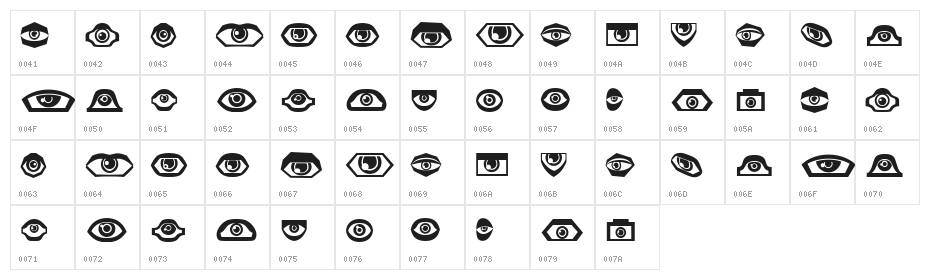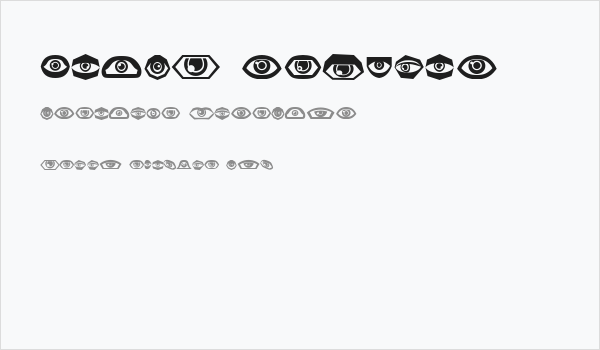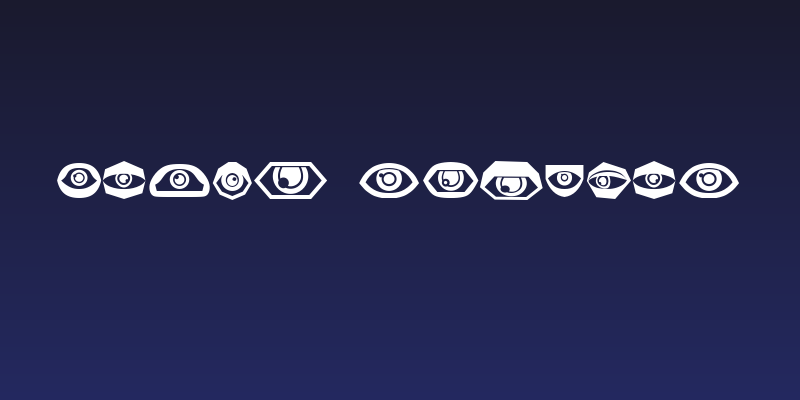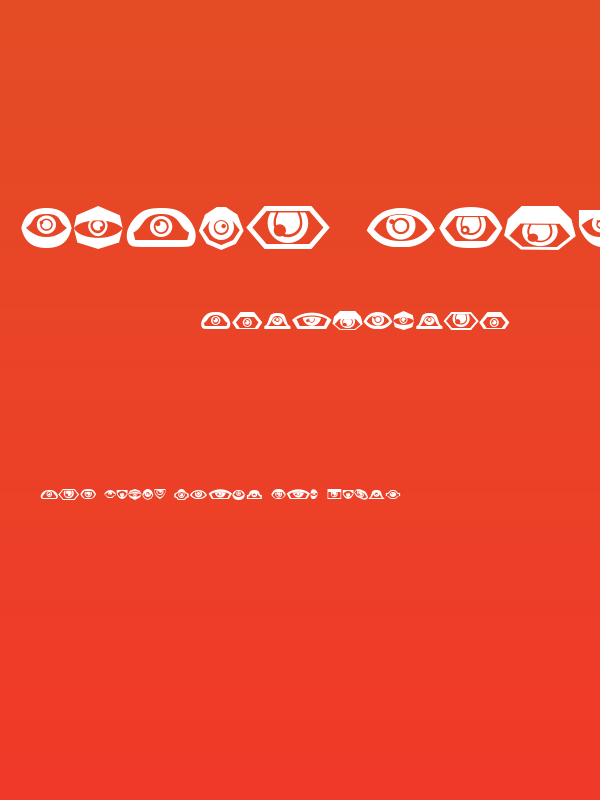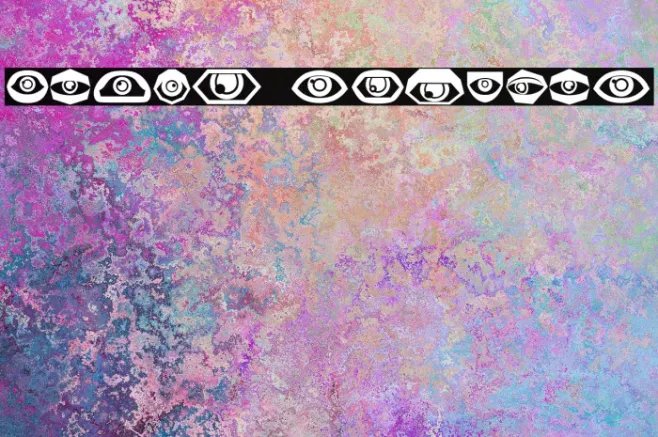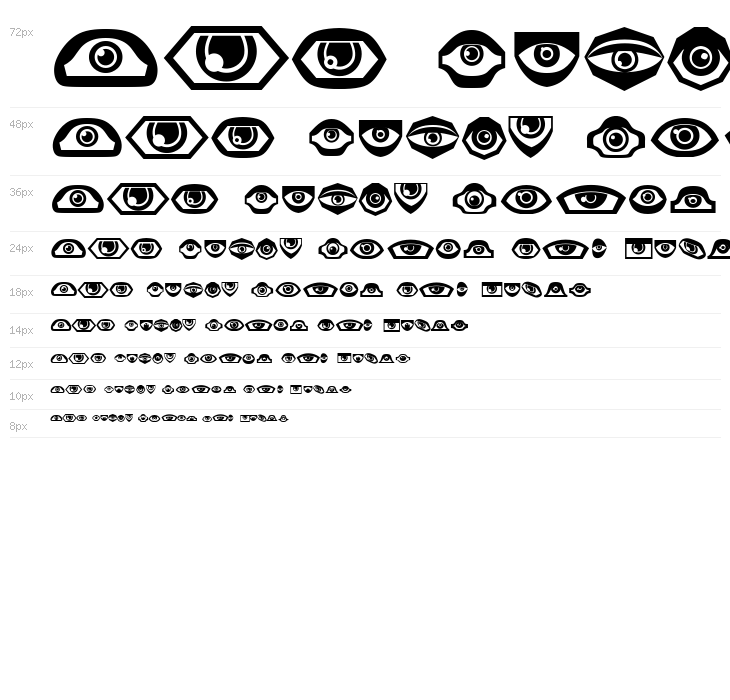
Watch Regular Font
Watch Regular Description
This design features a series of eye motifs, each enclosed within various geometric shapes. The shapes range from circles and ovals to hexagons and rectangles, creating a visually intriguing pattern. The eyes are stylized with a bold, graphic quality, emphasizing the pupil and iris with thick outlines. This design is more of a decorative element rather than a traditional font, as it lacks alphanumeric characters and focuses solely on the eye motif. The repetition of the eye symbol across different shapes gives it a unique and artistic appeal, suitable for creative projects that require a distinctive visual element.
| Use Case | Logos, Artistic designs, Branding |
| Proposed Projects | Ideal for graphic design projects, artistic posters, or branding elements where a unique and eye-catching motif is desired. |